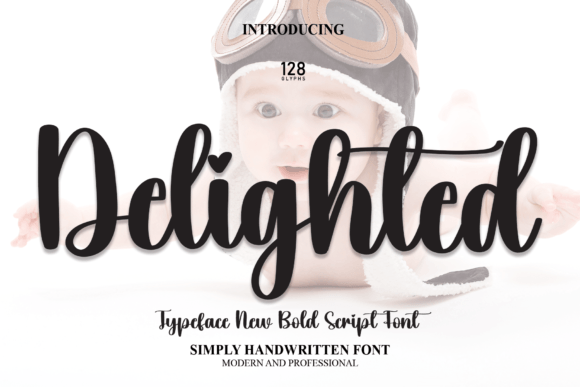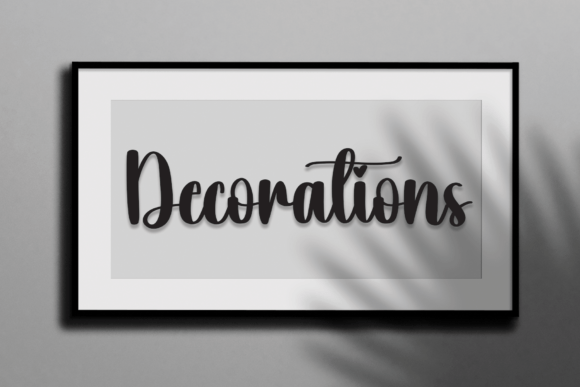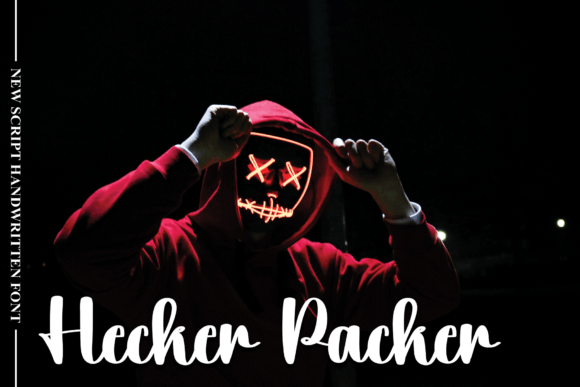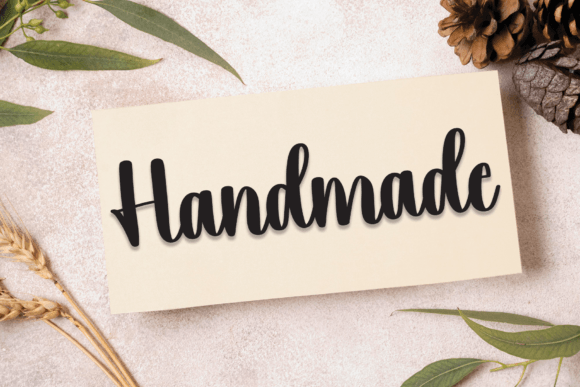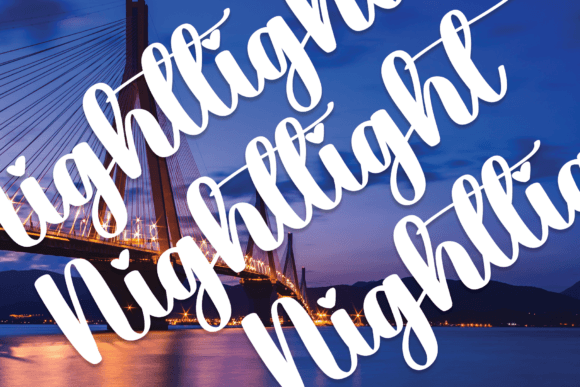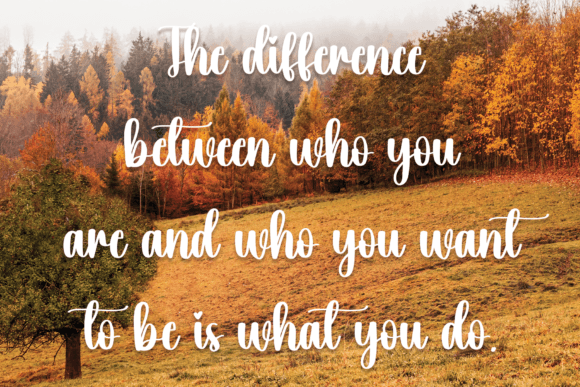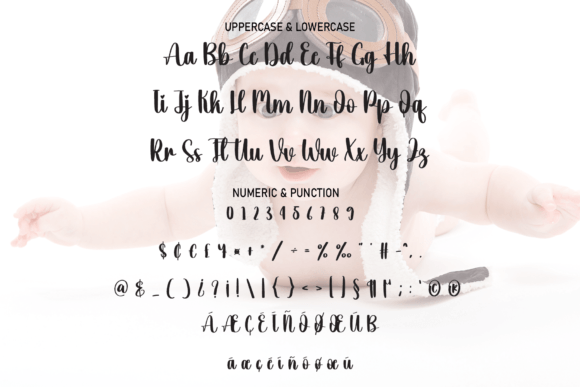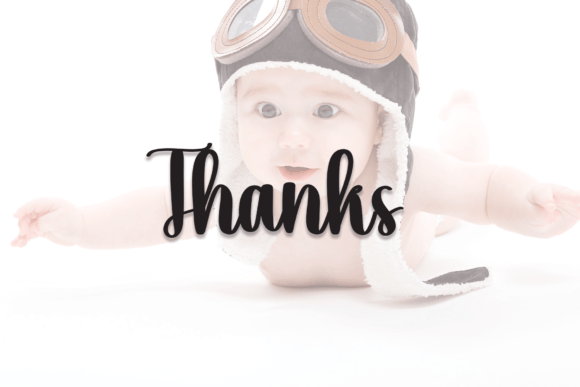
Delighted Font
About Delighted Font
“Delighted” is a charming and utterly adorable handwritten script font. With its endearing qualities, this font is sure to bring a sense of sweetness and charm to your design endeavors. Whether you’re working on various creative projects, “Delighted” promises to infuse a delightful and romantic touch into each one.
The “Delighted” font is characterized by its gentle and whimsical appearance, making it a versatile choice for a wide range of design ideas. Its cute and adorable nature allows it to enhance the visual appeal of your projects and evoke a sense of joy and romance.
This font is particularly well-suited for adding a touch of playfulness and elegance to your designs. Whether you’re creating wedding invitations, greeting cards, or love-themed graphics, “Delighted” can add a special and heartfelt element that resonates with your audience.
For crafting enthusiasts, this font is perfect for personalizing handmade gifts, scrapbooks, or any DIY project where you want to convey a sense of warmth and affection.
In digital design, “Delighted” can elevate your social media posts, blog graphics, or digital illustrations. Its charming and romantic qualities can make your content more inviting and relatable.
Overall, “Delighted” is a captivating handwritten script font that exudes cuteness and charm. Its ability to add a joyful and romantic touch to your projects makes it an excellent choice for various creative endeavors, from romantic invitations to heartwarming digital designs. With “Delighted,” you can infuse your work with an endearing quality that leaves a lasting impression on your audience.